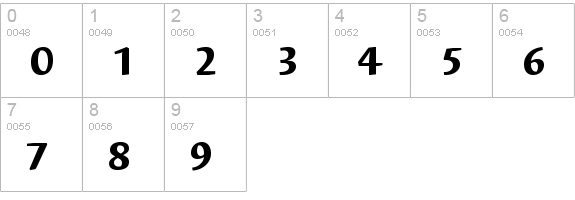
SyndorEF-Bold is a strong, high-contrast variant in the SyndorEF typeface family \xE2\x80\x94 well suited to headlines, attention-grabbing titles, and strong calls-to-action.
SyndorEF-Bold is a modern and elegant font that exudes sophistication and style. Its bold and eye-catching design makes it perfect for headlines, titles, and other attention-grabbing text. The clean lines and sharp angles of SyndorEF-Bold give it a contemporary feel that is sure to make your designs stand out. And the best part? SyndorEF-Bold is completely free to download at FontsMarket.com. You can enhance your projects with this stunning font without having to spend a penny. Whether you're working on a branding project, poster design, or any other creative endeavor, SyndorEF-Bold will be a versatile and reliable choice. Download SyndorEF-Bold today and elevate your designs with its striking presence.